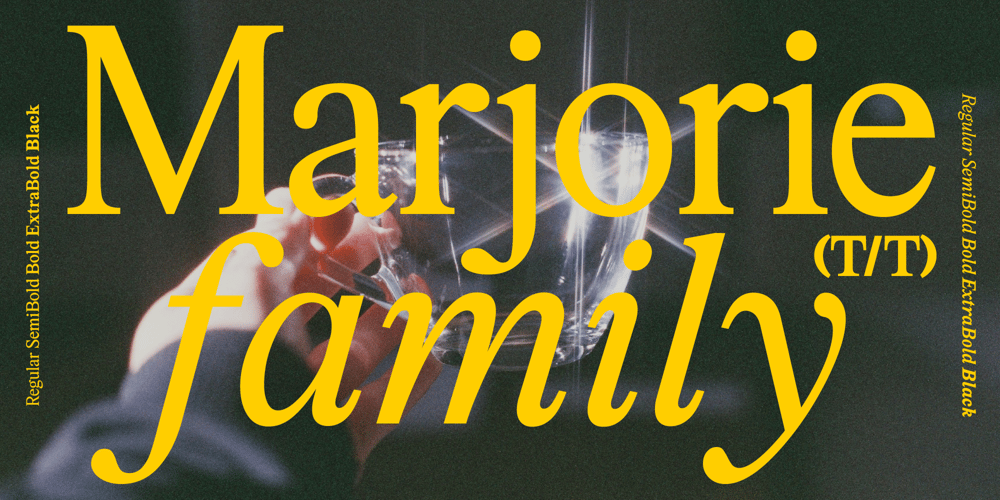
Marjorie
Marjorie font
Marjorie Font Family was designed by Harbor Bickmore and published by That That Creative. Marjorie contains 10 styles and family package options. Marjorie is designed specifically for setting really long blocks of text. It has a subtle beauty with just enough personality to make you smile in the rare instances that you actually notice it. Mostly it just takes a back seat and lets you read without distraction. However Don’t let that stop you from using it wherever you like. Headlines Titles, logos, whatever.